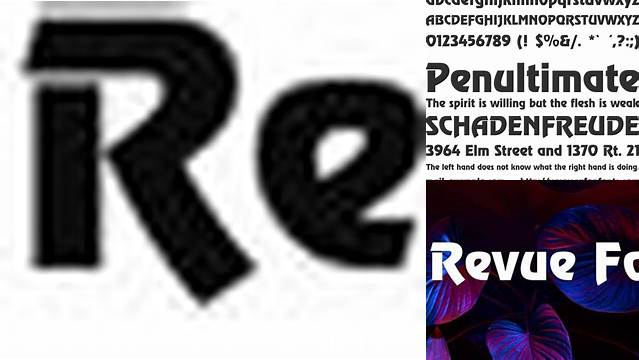
What is Revue Regular Font?
Revue Regular is a distinctive typeface known for its elegant and modern design. It often features clean lines and a balanced structure, making it a versatile choice for various design projects. But what exactly makes it so special? Let's delve into its key features:
Design Aesthetics: Revue Regular typically boasts a contemporary aesthetic. Its clean lines and carefully crafted letterforms lend a sense of sophistication to any project. The font often features a balanced contrast between thick and thin strokes, contributing to its overall readability and visual appeal. The serifs, if present, are usually subtle and refined, adding a touch of classic elegance without overpowering the modern feel.
Readability and Legibility: One of the primary strengths of Revue Regular is its excellent readability. The letterforms are designed with clarity in mind, ensuring that text remains easily legible even at smaller sizes. The spacing between letters and words is carefully considered to optimize the reading experience. This makes it an ideal choice for both body text and headlines, where clarity is paramount.
Versatility in Design: Revue Regular is a highly versatile font that can be adapted to a wide range of design styles. It works well in both print and digital media, making it suitable for everything from brochures and magazines to websites and apps. Its neutral yet elegant appearance allows it to complement various design themes, whether you're aiming for a minimalist, corporate, or creative look.
Common Use Cases: You'll often find Revue Regular used in branding materials, such as logos and business cards, where its clean and professional look can help establish a strong brand identity. It's also a popular choice for editorial design, where its readability and visual appeal make it ideal for long-form content. Additionally, it's frequently used in web design for headings, body text, and navigation menus.